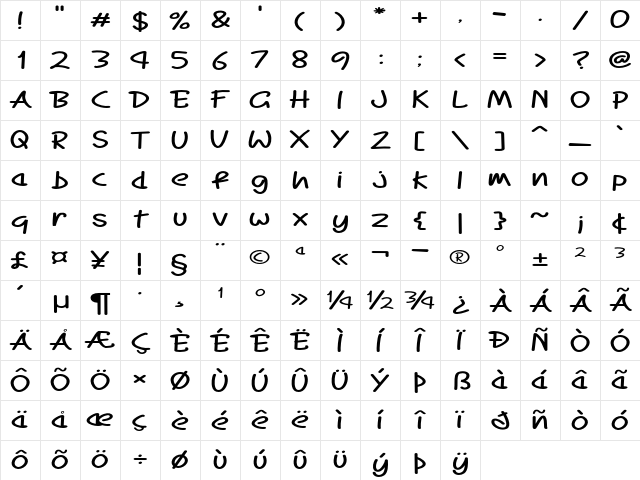
Jakaro Extra-expanded Regular Free Font
Jakaro Extra-expanded Regular
Style: Extra-expanded Regular
Jakaro Family
Complete Jakaro Extra-expanded Regular glyph index. Displaying only characters natively supported by Jakaro Extra-expanded Regular font.
Design Context for Jakaro
Jakaro is a composed and adaptable typeface that performs quietly and consistently across a wide range of design contexts.